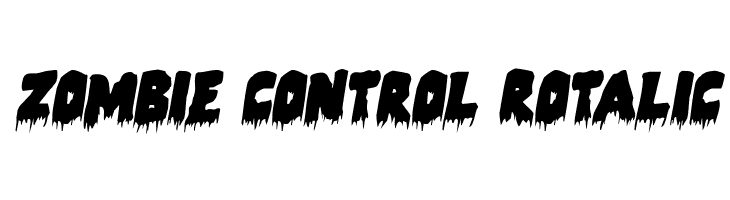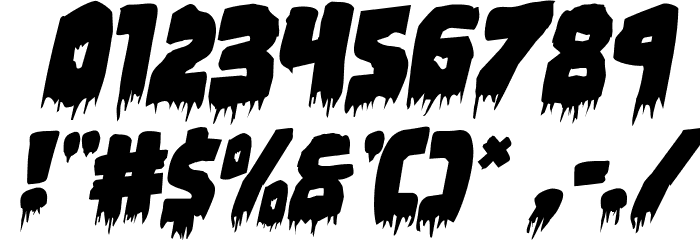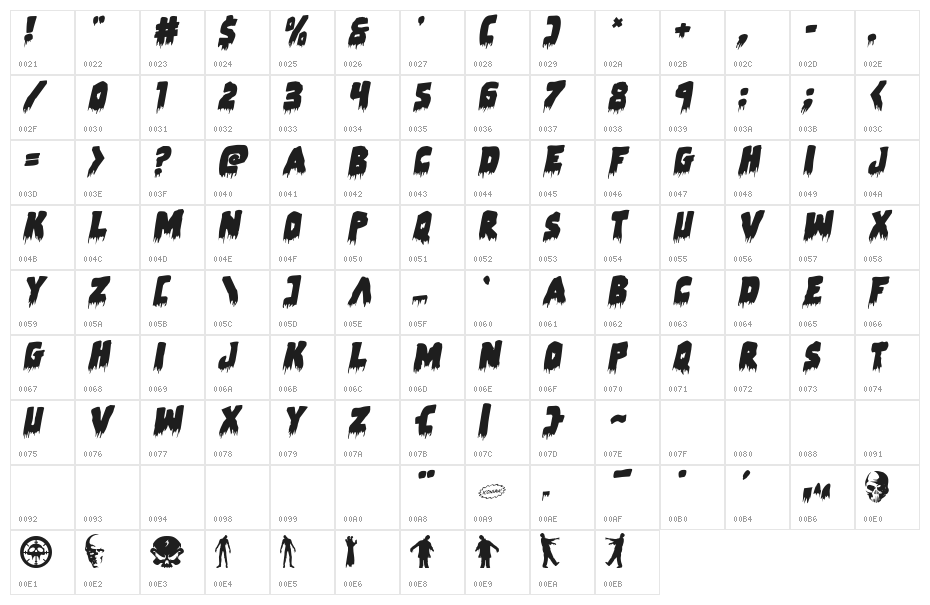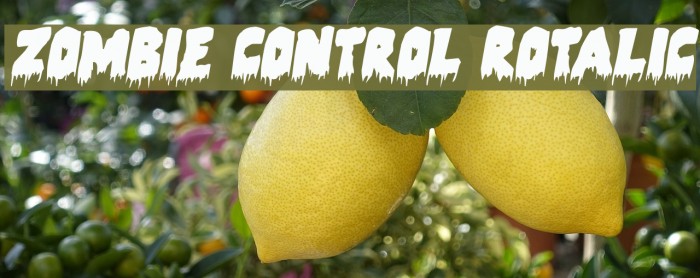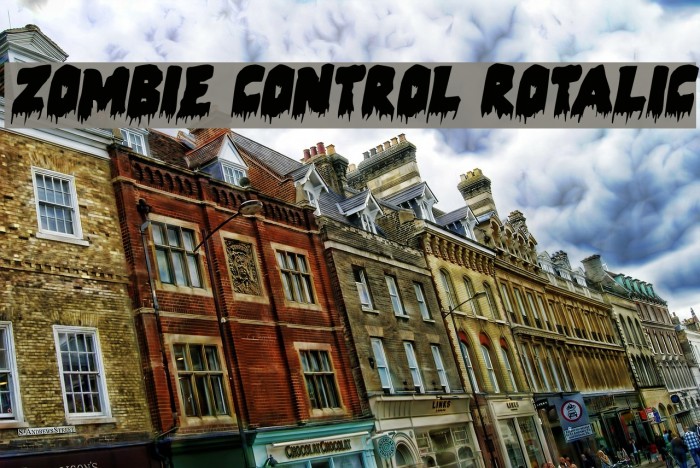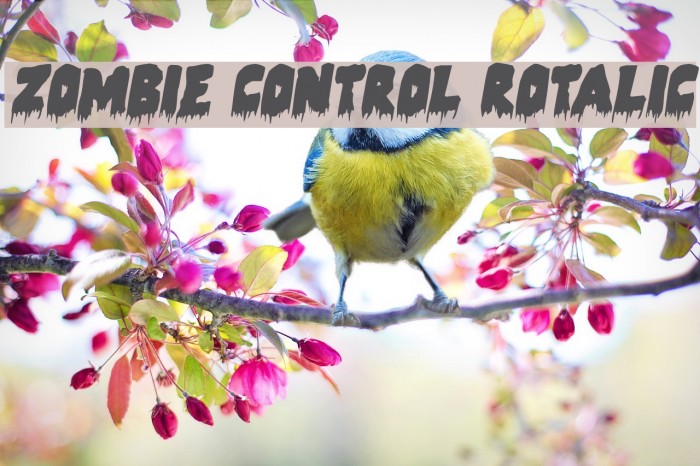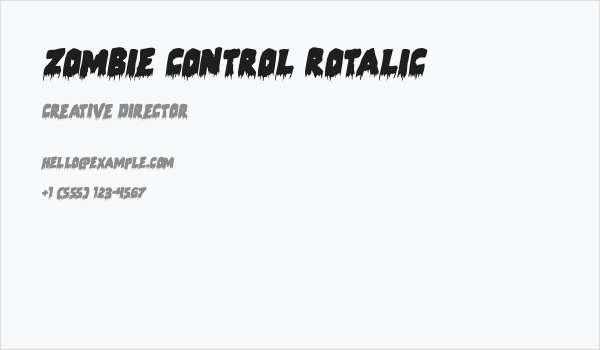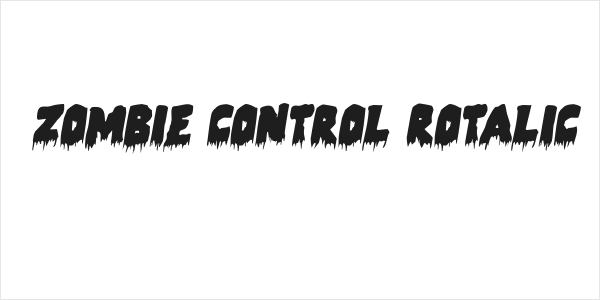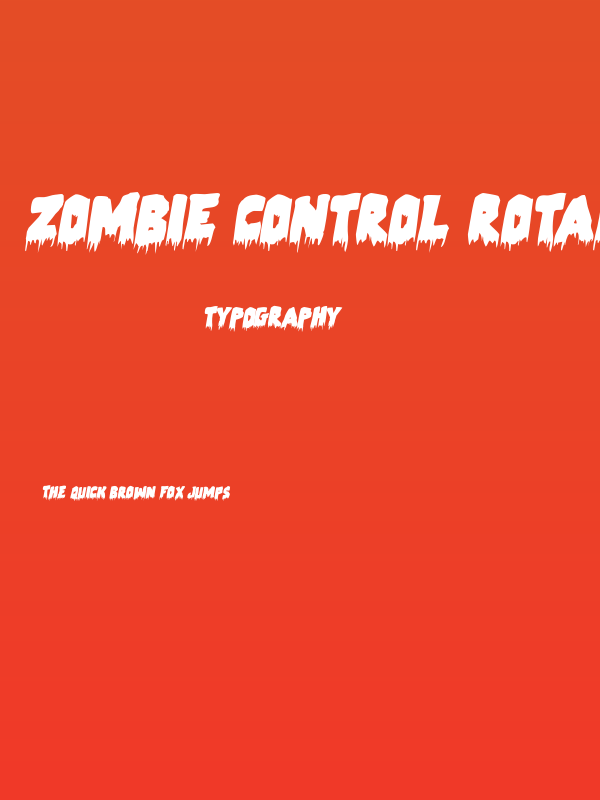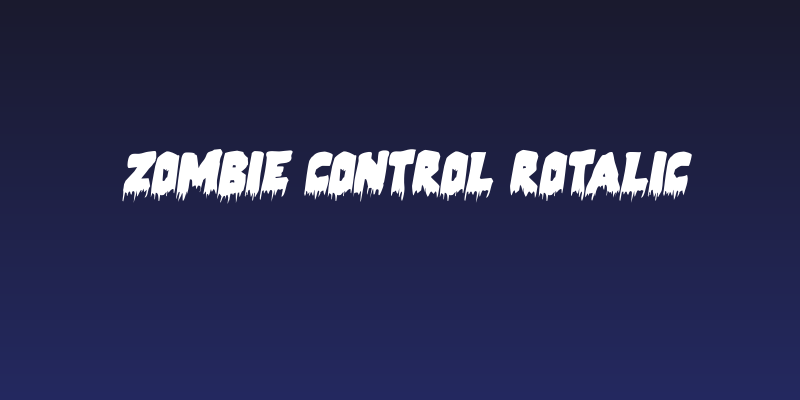
Zombie Control Rotalic Font
Zombie Control Rotalic Description
This font features a bold and dramatic style with jagged, irregular edges that give it a horror-themed appearance. The letters appear as if they are dripping or melting, creating a sense of movement and unease. The uppercase and lowercase characters maintain a consistent style, with exaggerated serifs and sharp angles. The numbers and special characters follow the same aesthetic, ensuring a cohesive look across all glyphs. This font is designed to grab attention and evoke a sense of fear or suspense, making it ideal for thematic projects.